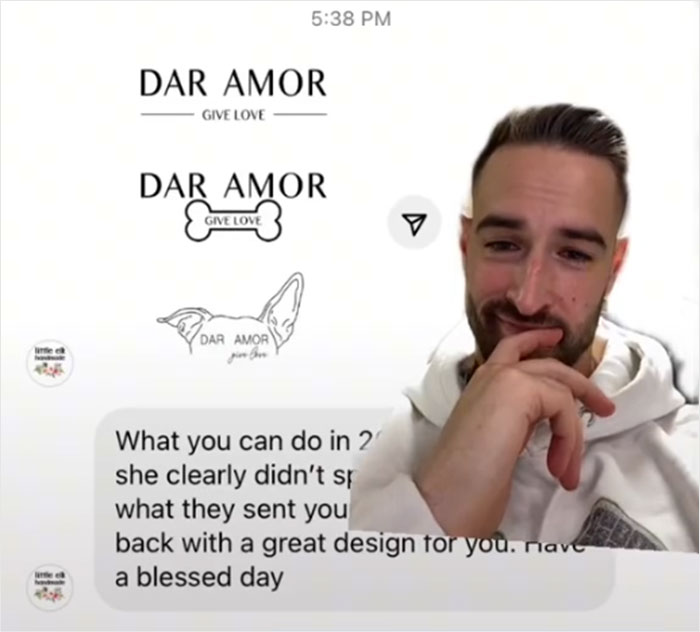
Guy Shows Pathetic Logo He Received After Paying This Designer $250, Internet Responds By Creating Him A New One For Free
When you ask for the services of a supposedly qualified designer, you expect them to put in at least a bit of effort. You know, not just write your company’s name in Microsoft Word or Google Docs in a simple, generic font. However, that’s exactly what happened when Ryan Clark, the founder of Dar Amor Bracelets, asked for a guy named Tyler to design his logo for 250 dollars.
Tyler sent him back the most low-effort logo we’ve ever seen. There was exactly zero creativity there and Ryan was onto him. In a series of TikTok videos, the client showed some of his and the designer’s emails and demonstrated how some ‘professionals’ hide their laziness behind fancy words. Scroll down to check out the viral videos.
Bored Panda reached out to Ryan who told us about what happened. He said that he was surprised when he initially saw the logo design.
“It seemed low-effort, but I didn’t write it off initially. I wondered if I could make one better, so I opened Google Docs, and after typing ‘Dar Amor’ as a starting point, I knew what had happened,” he shared with Bored Panda. Scroll down for our full interview.
In a viral video that got nearly 11 million views, Ryan shared how the designer he hired for $250 tried to swindle him
The final version of the ‘professional’ logo Ryan requested shocked him
Here’s how some TikTok users reacted to what happened
Ryan, the founder of Dar Amor Bracelets, told Bored Panda that he was “shocked” by the internet’s reaction to his videos. “I didn’t think so many people would be interested in my logo debacle. Followed by the outreach of support in the form of words and logos by so many creators, including @emilyzugay. I am still overwhelmed by the kindness of strangers,” he said that the internet had a very powerful impact on him and for his business.
In a follow-up video, Ryan shared a few emails between himself and the designer
The designer was more than shameless in how he tried to spin things
TikTok users were ruthless in their judgment
In one of the follow-up videos, Ryan showed how Tyler eventually came up with a proper design for Dar Amor Bracelets’ logo. However, the designer then wanted an additional payment of 99 dollars from his client which he had already ripped off. Tyler’s look when he saw the audacity of the ‘artist’ was simply priceless.